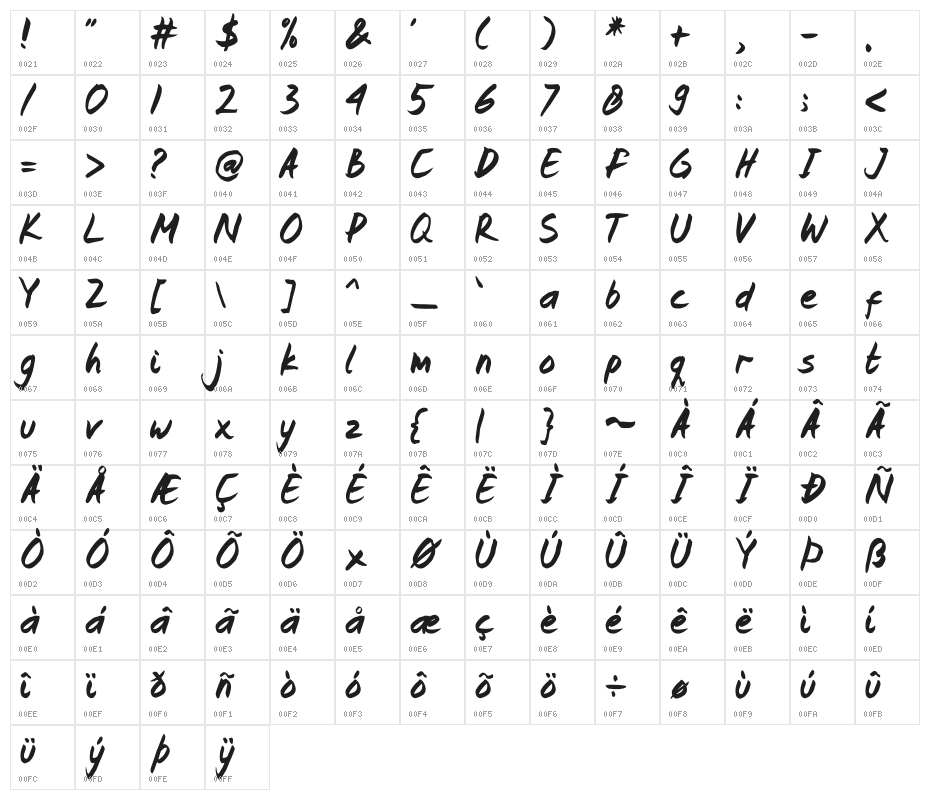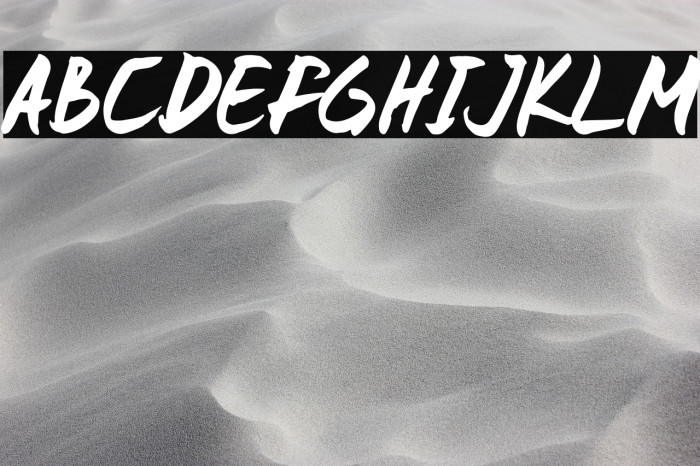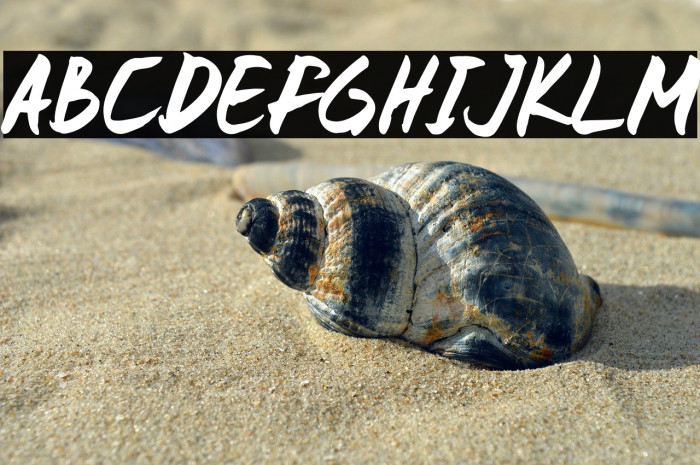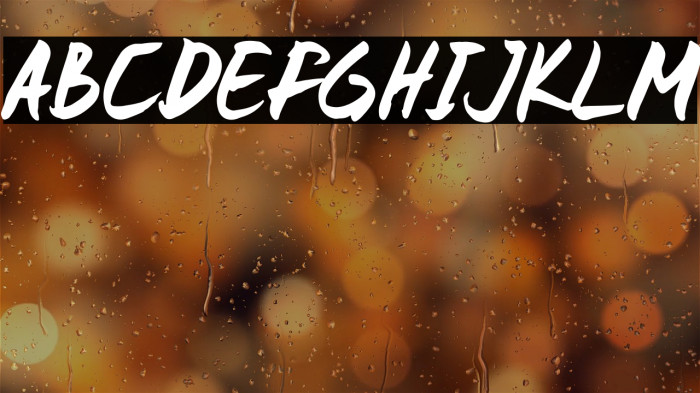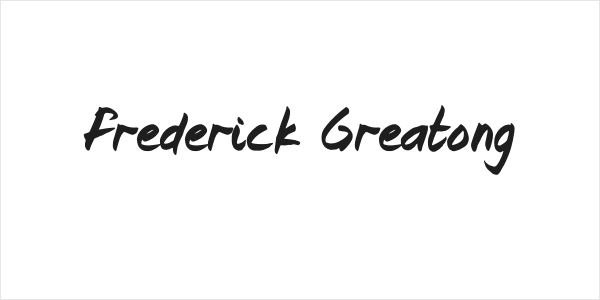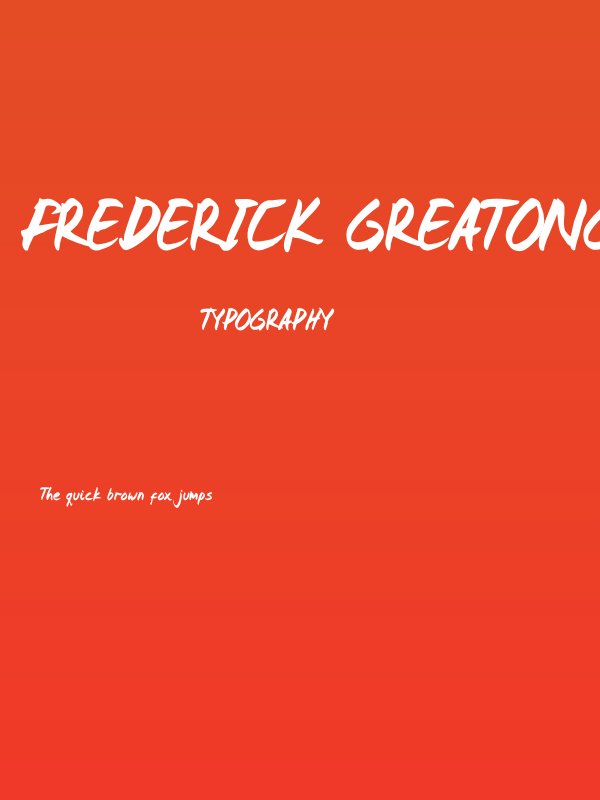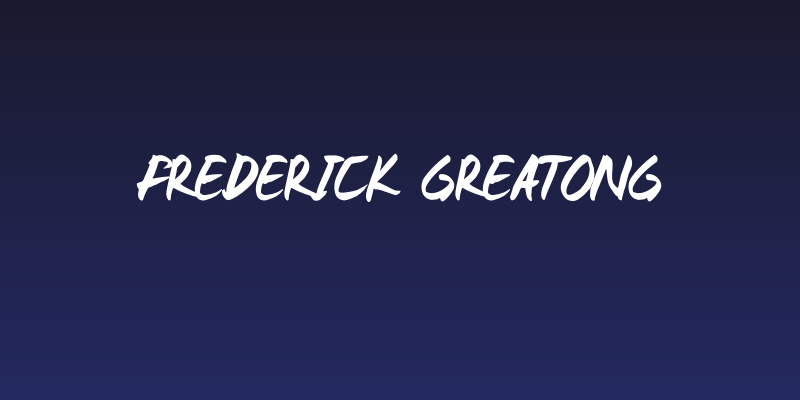
Frederick Greatong Font
Frederick Greatong Description
This font features a bold and expressive handwritten style, characterized by its dynamic and fluid strokes. The letters are slightly slanted, giving a sense of motion and energy. The uppercase and lowercase letters maintain a consistent style, with rounded edges and varying stroke widths that add to its lively appearance. Numbers and special characters are crafted with the same attention to detail, ensuring a cohesive look across all elements. This font exudes a casual yet artistic vibe, making it suitable for projects that require a personal touch.